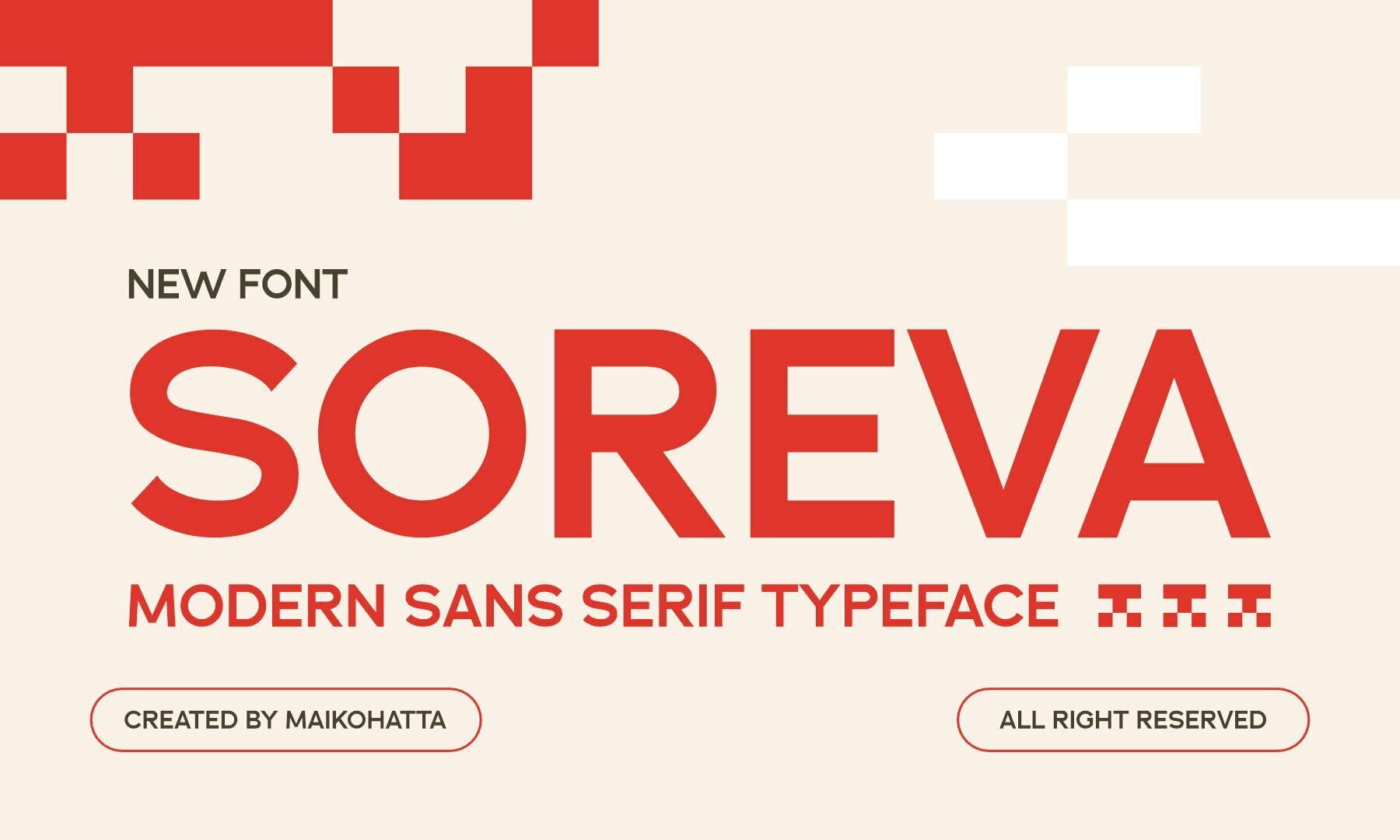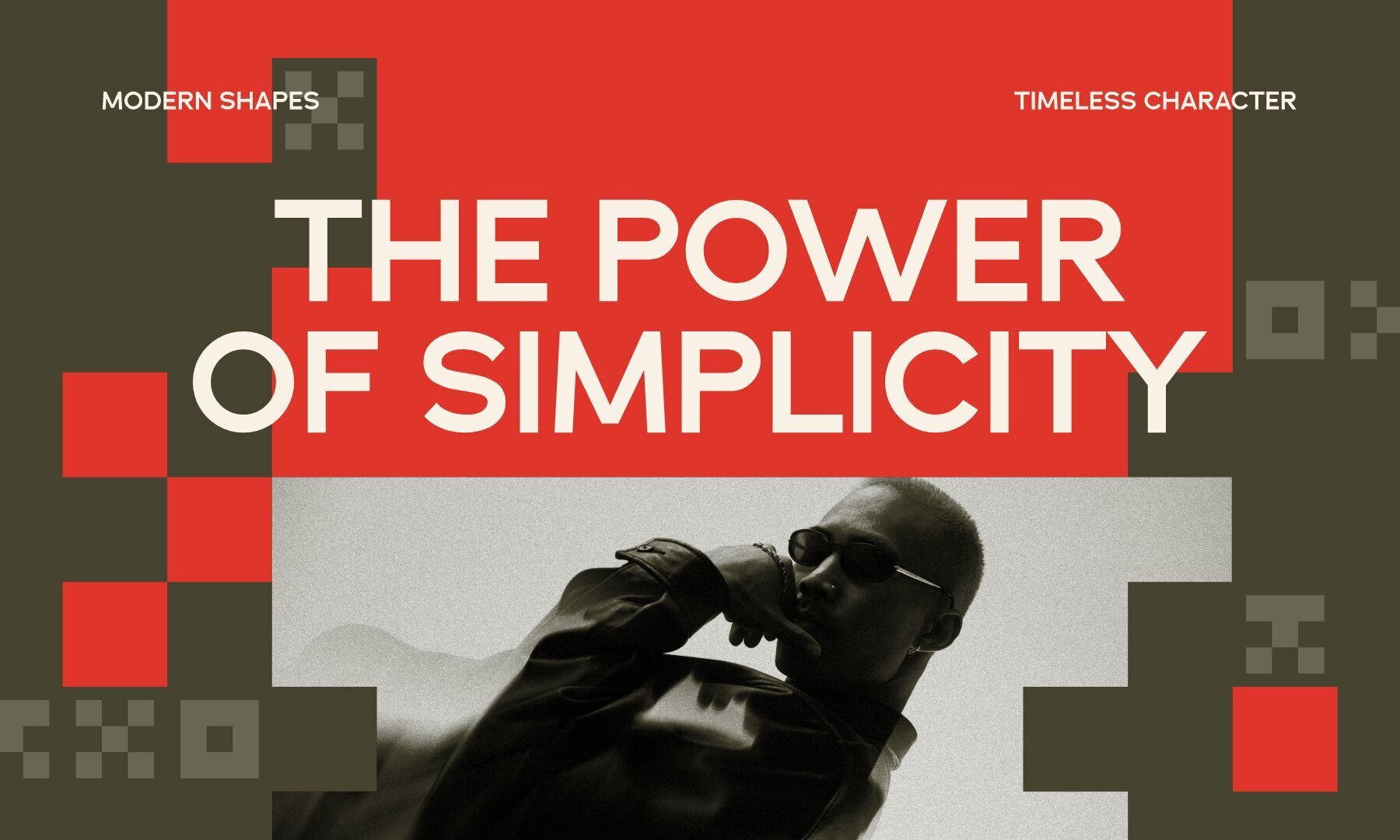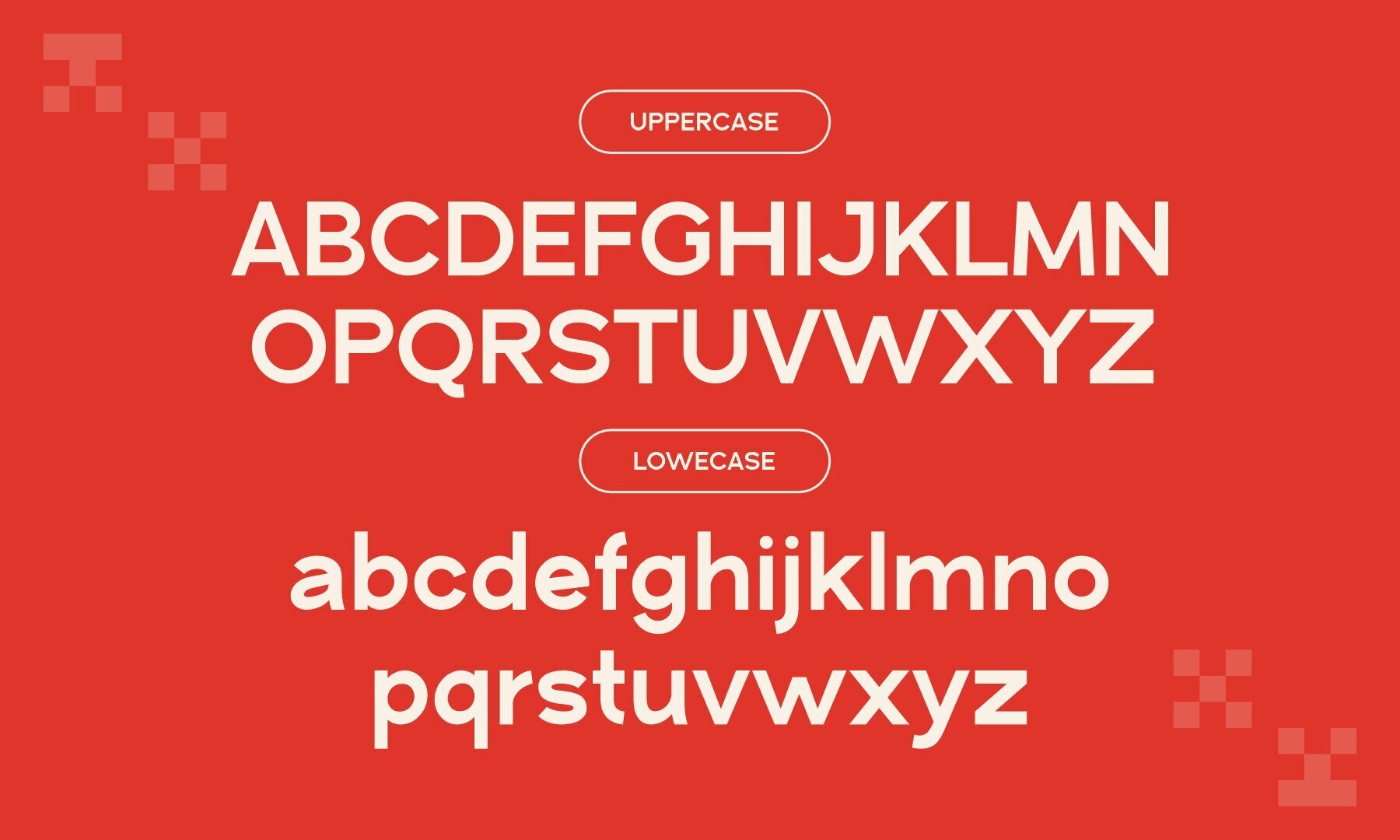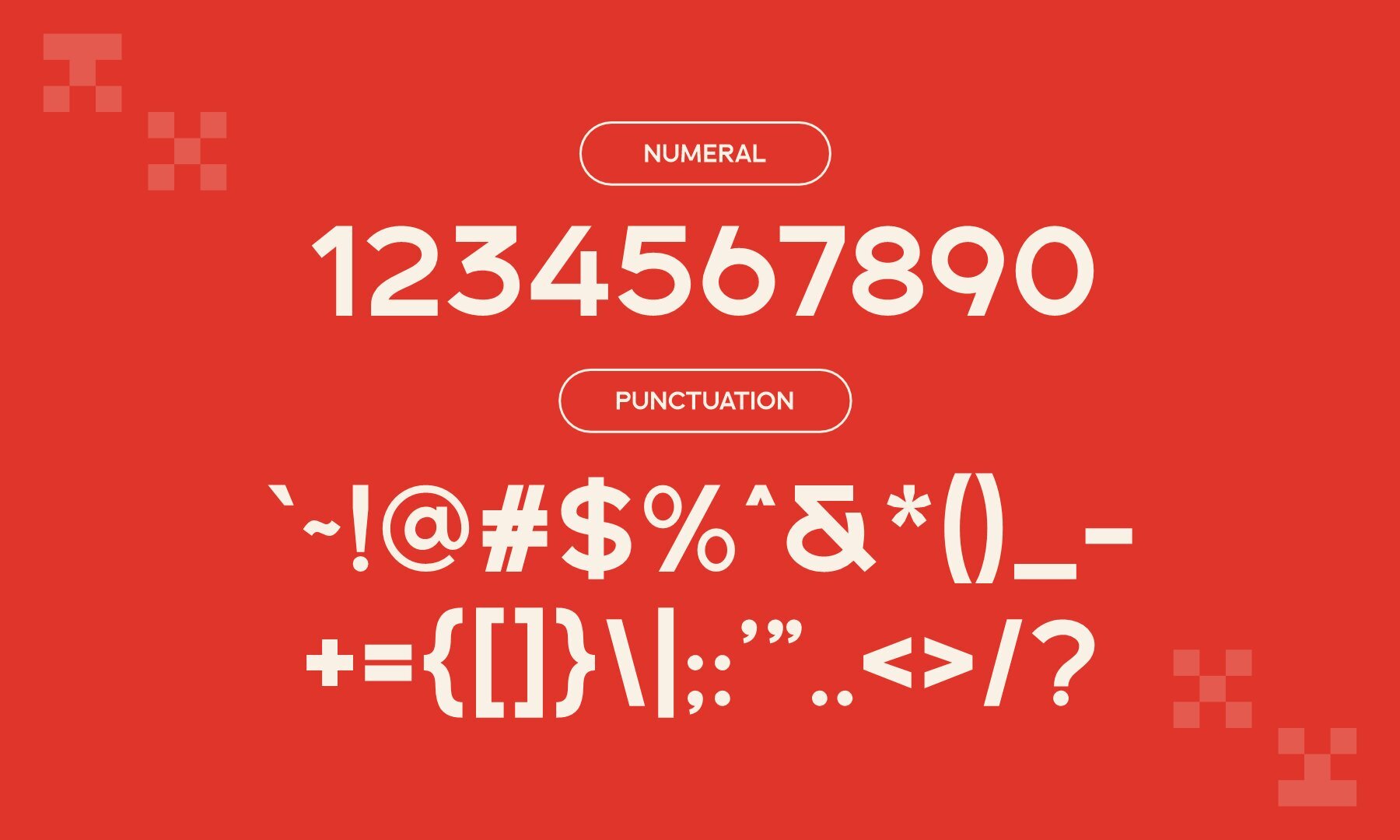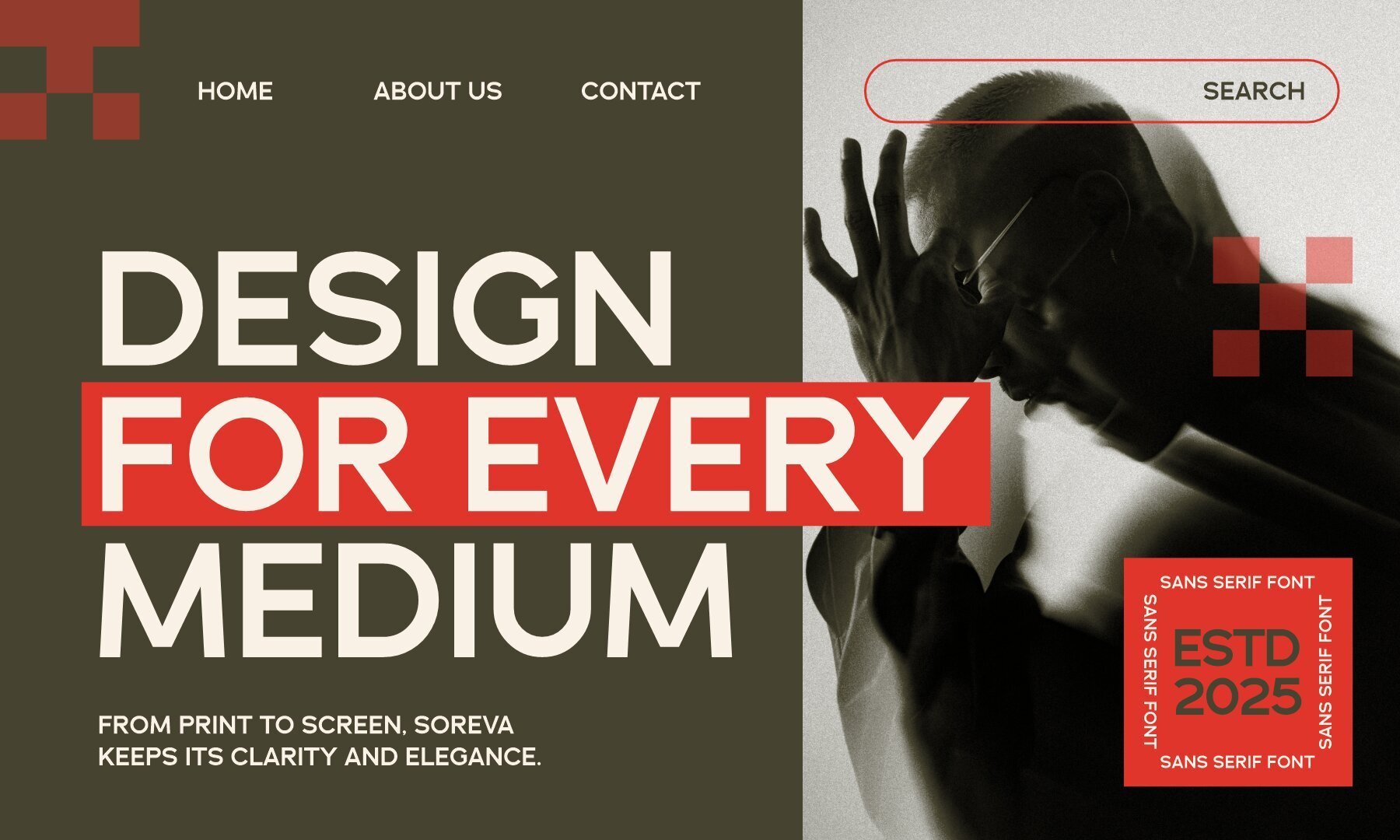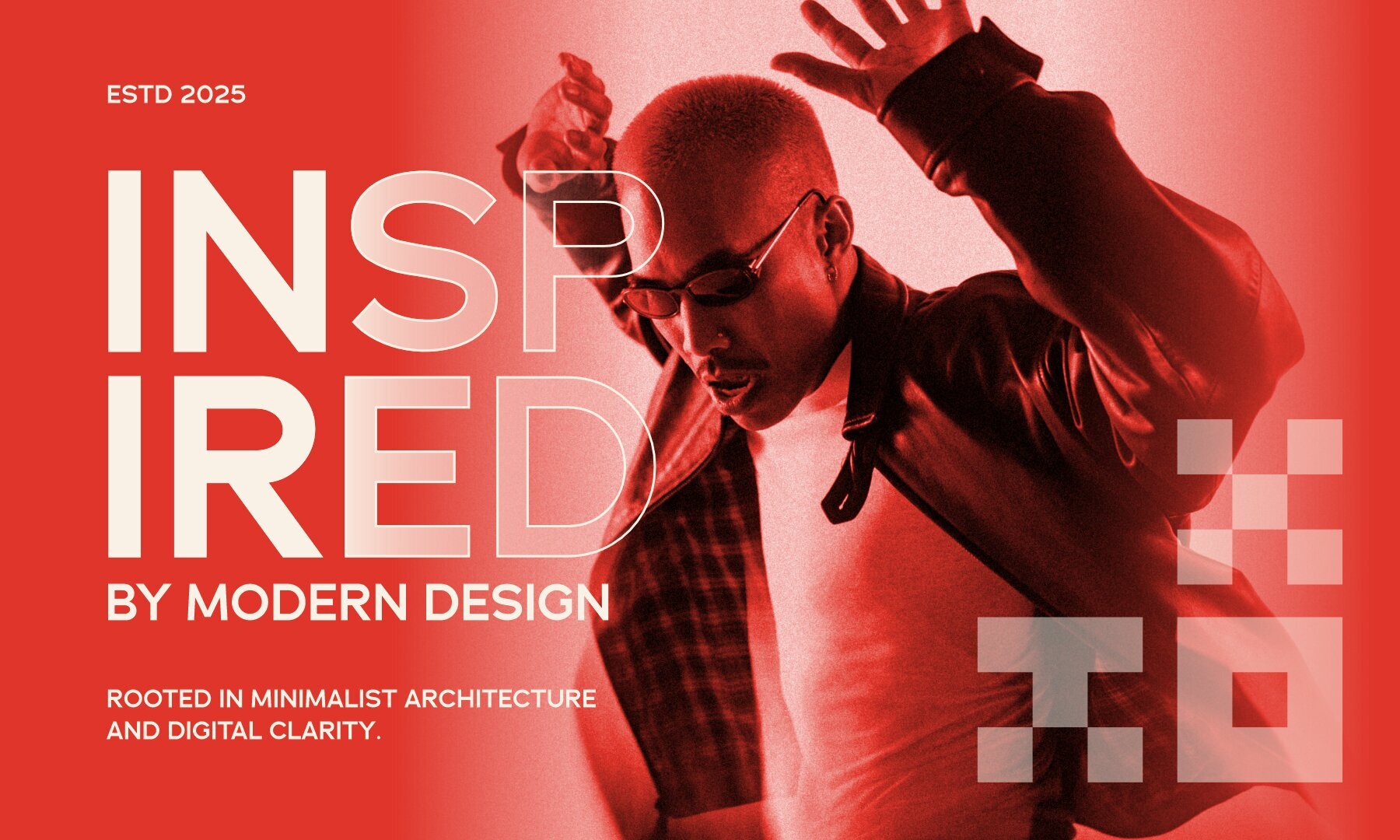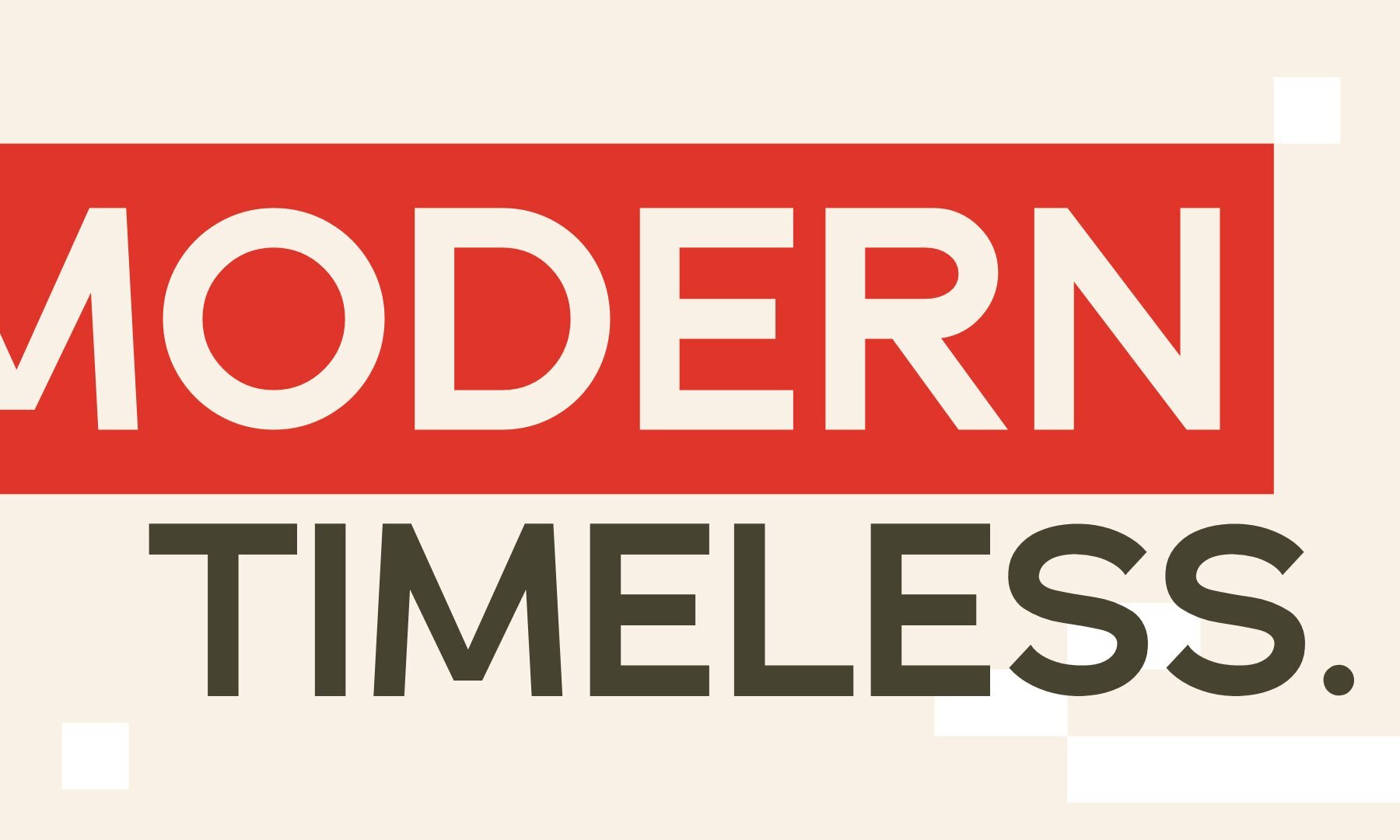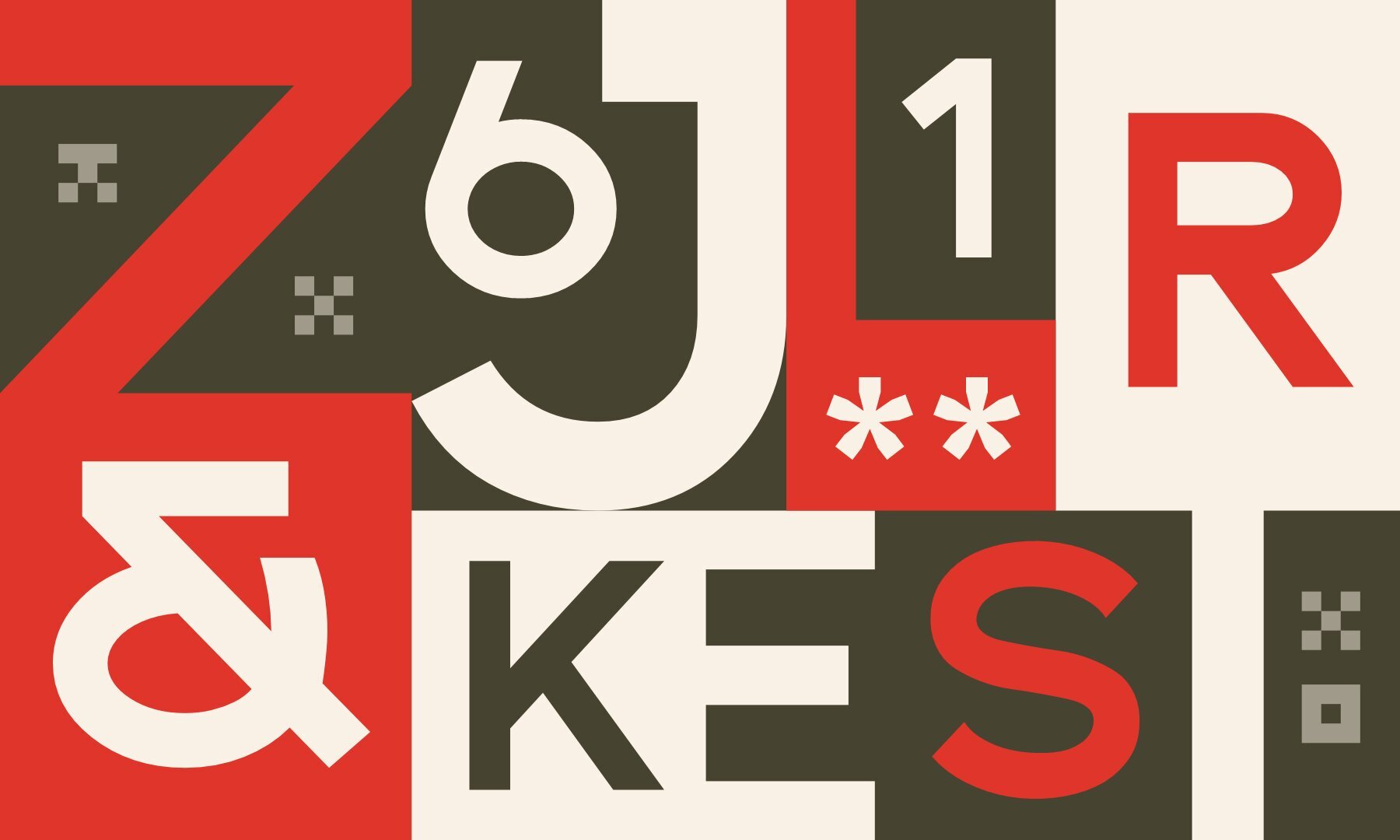
Soreva Font
SOREVA
Soreva is a modern sans serif typeface defined by its clarity, geometric structure, and bold character. The crisp forms and balanced proportions suit branding, headlines, posters, and digital interfaces where contemporary appeal is essential. Its design prioritizes readability while offering a subtle expressive quality, making it a reliable choice for projects that demand both utility and a strong visual imprint. The typeface features rounded curves contrasted with sharp terminals, combining professionalism with a sense of warmth. Soreva handles upper and lowercase settings with ease, adapting seamlessly from headlines to body text. Its diverse weights support versatility across various media, ensuring consistency and visual interest in every application. Features:Soreva: Geometric Sans Serif for Confident Design